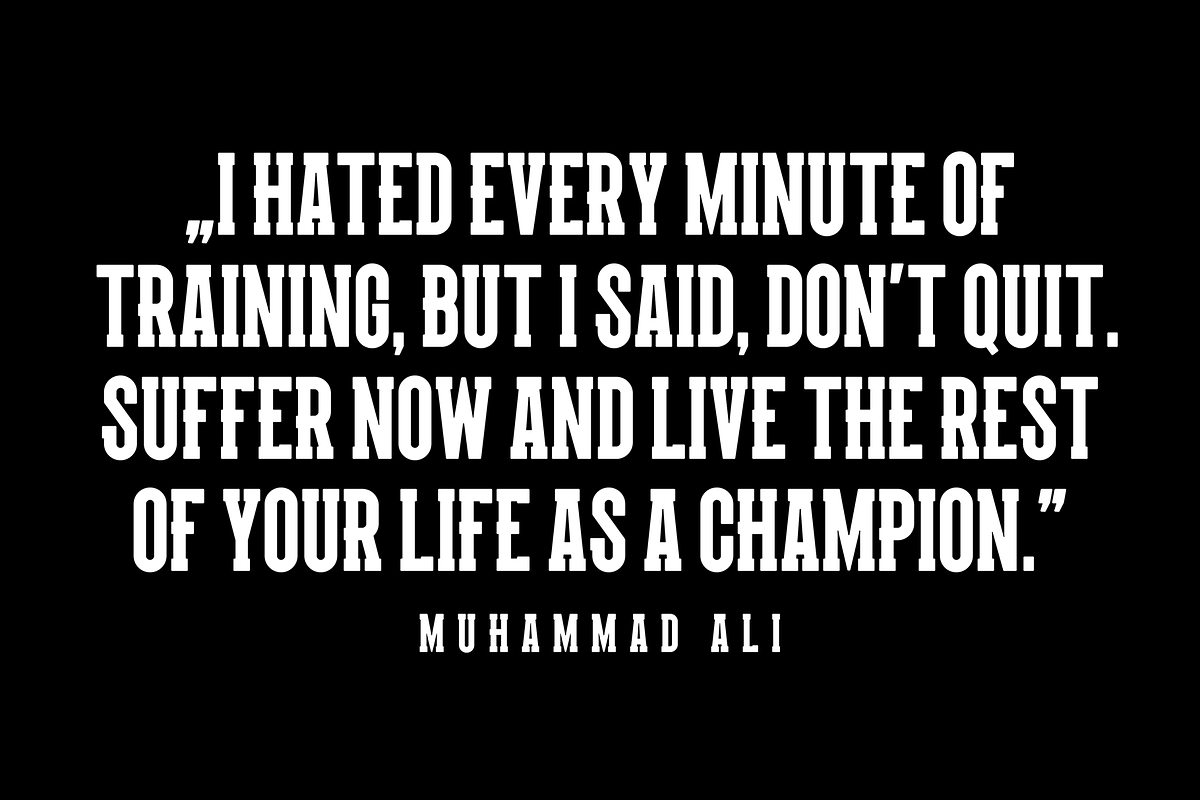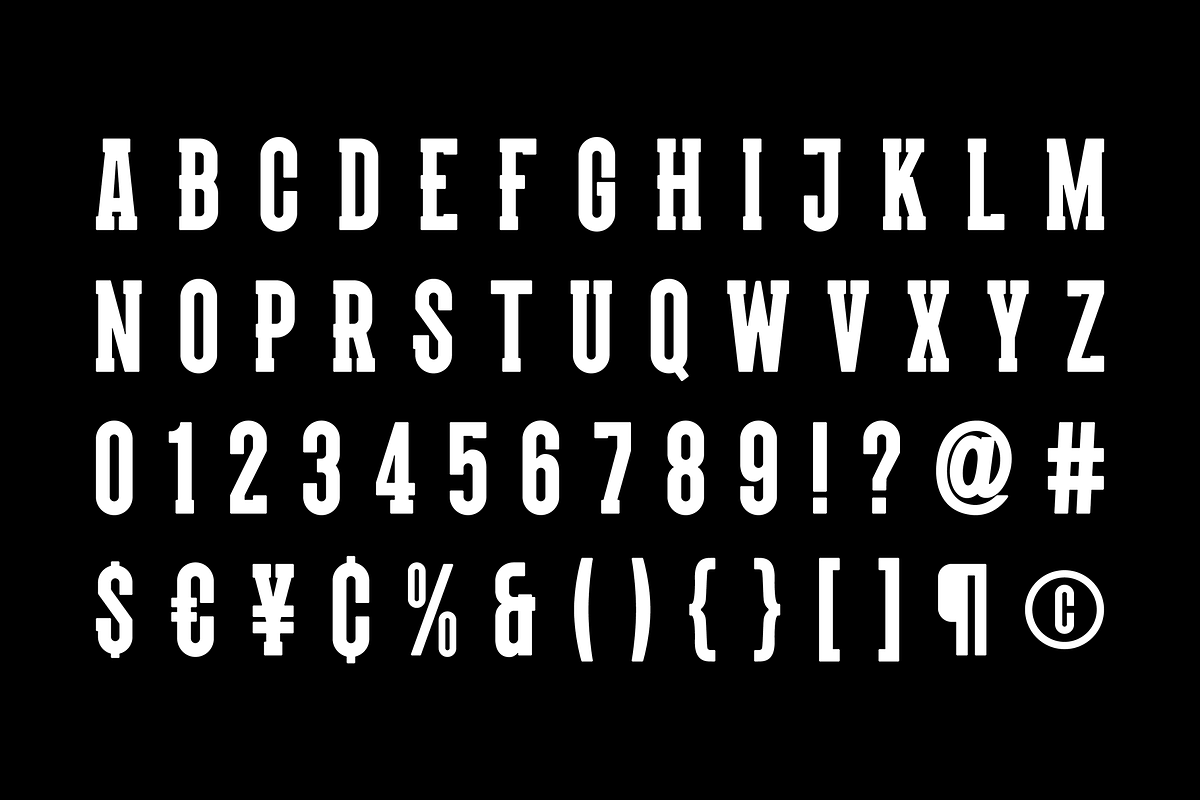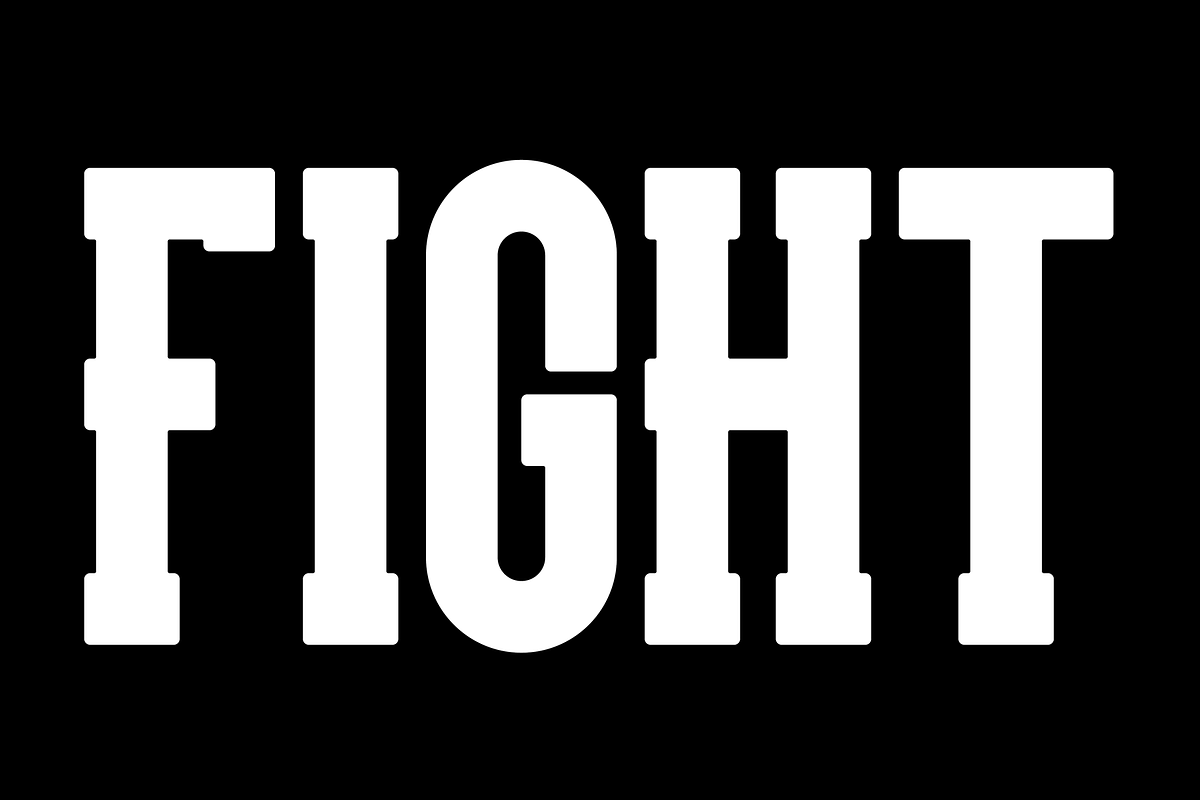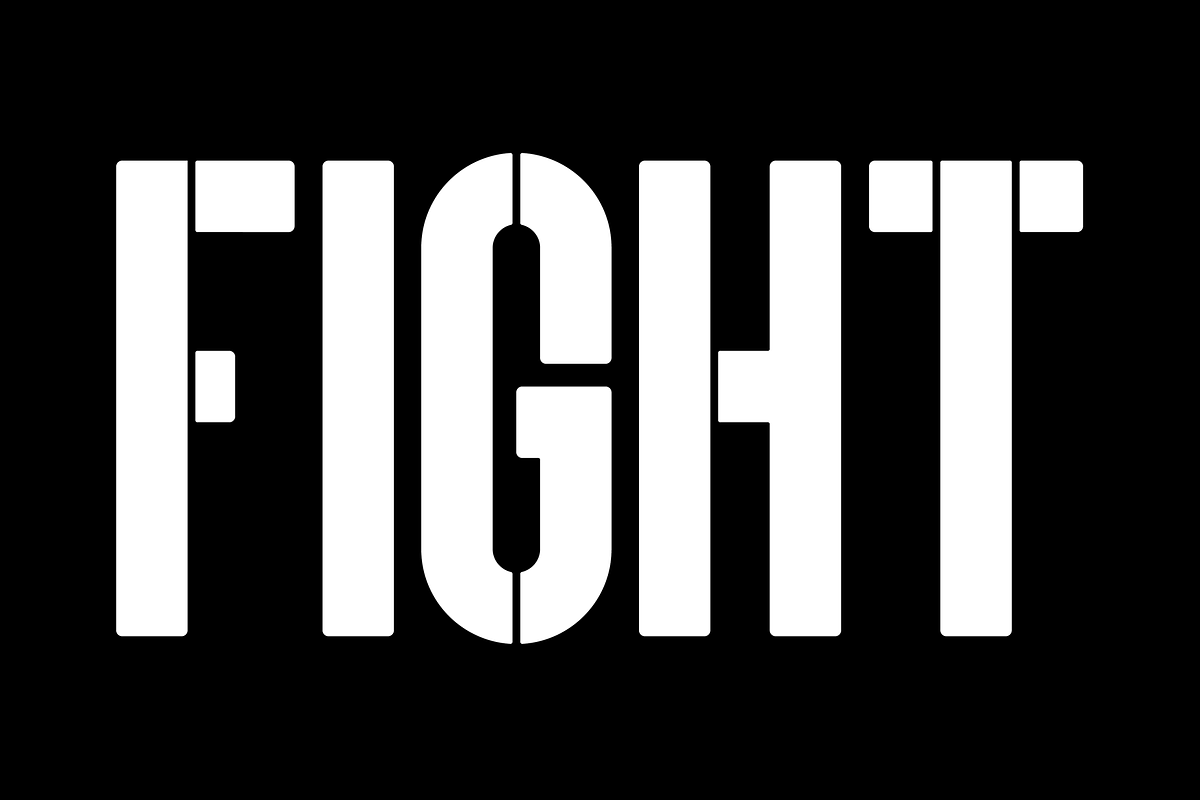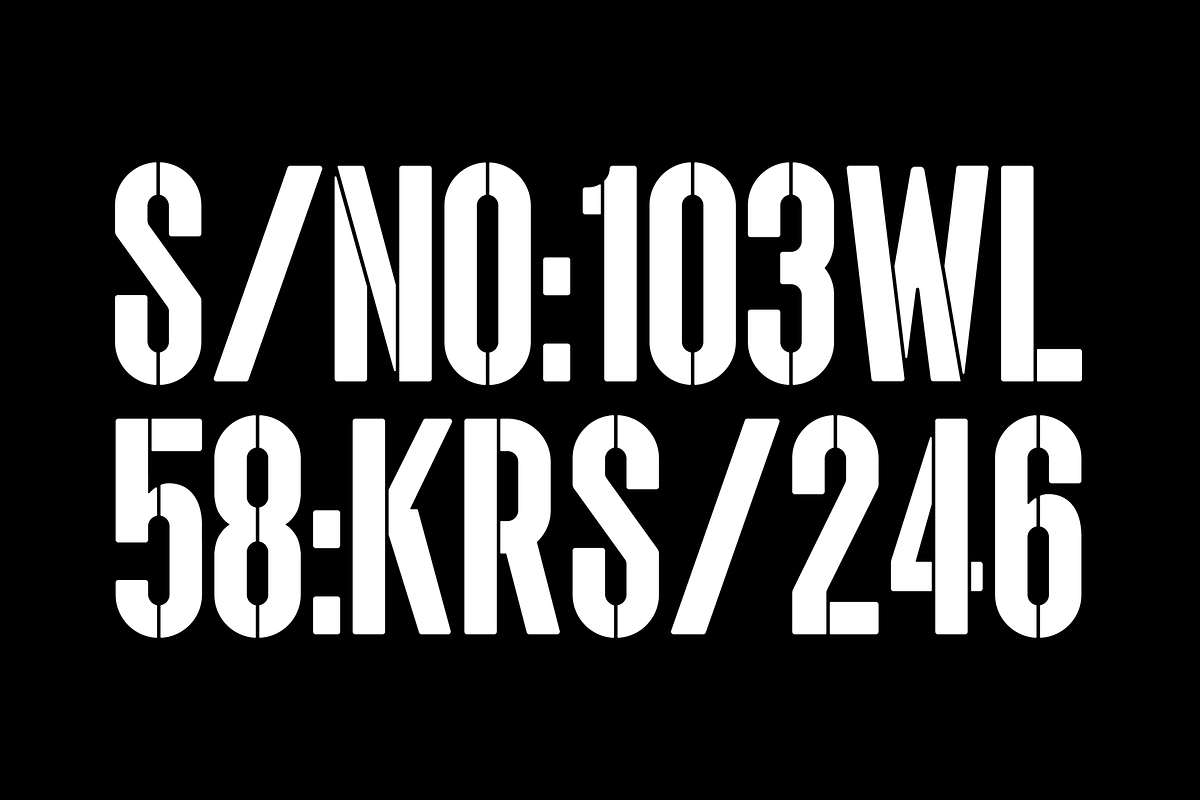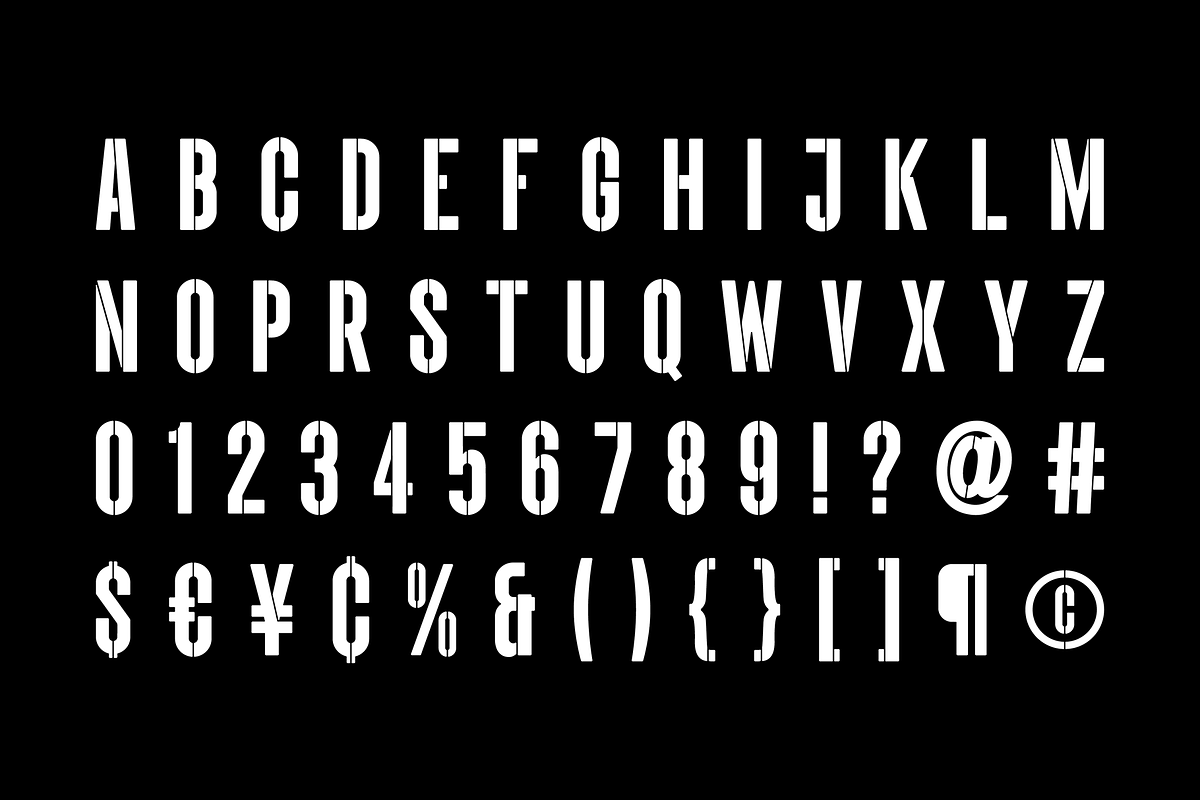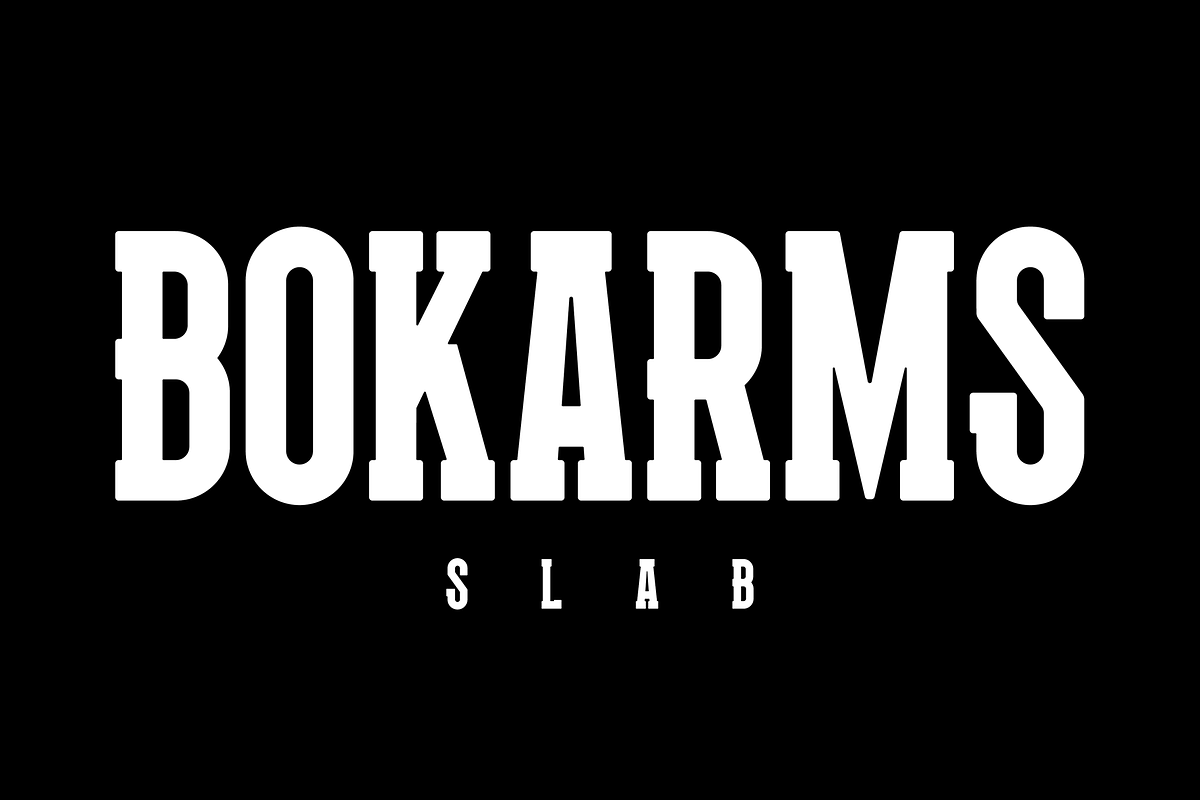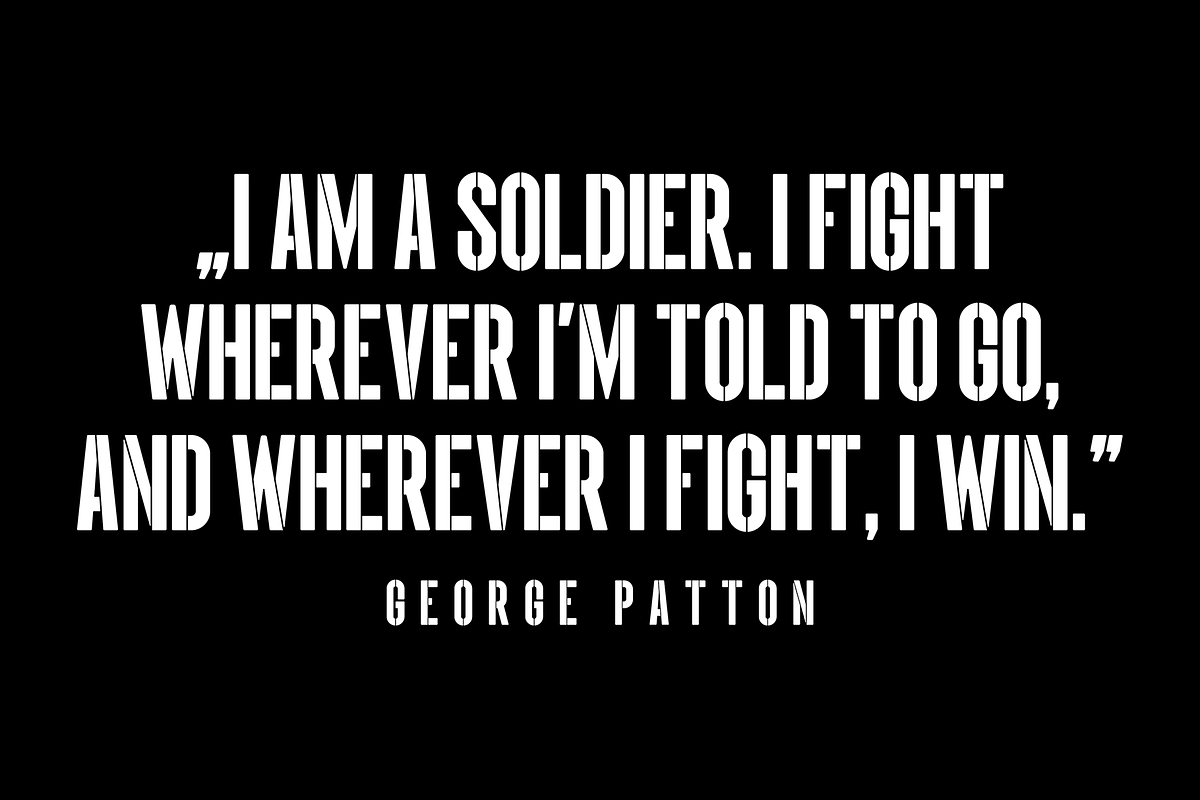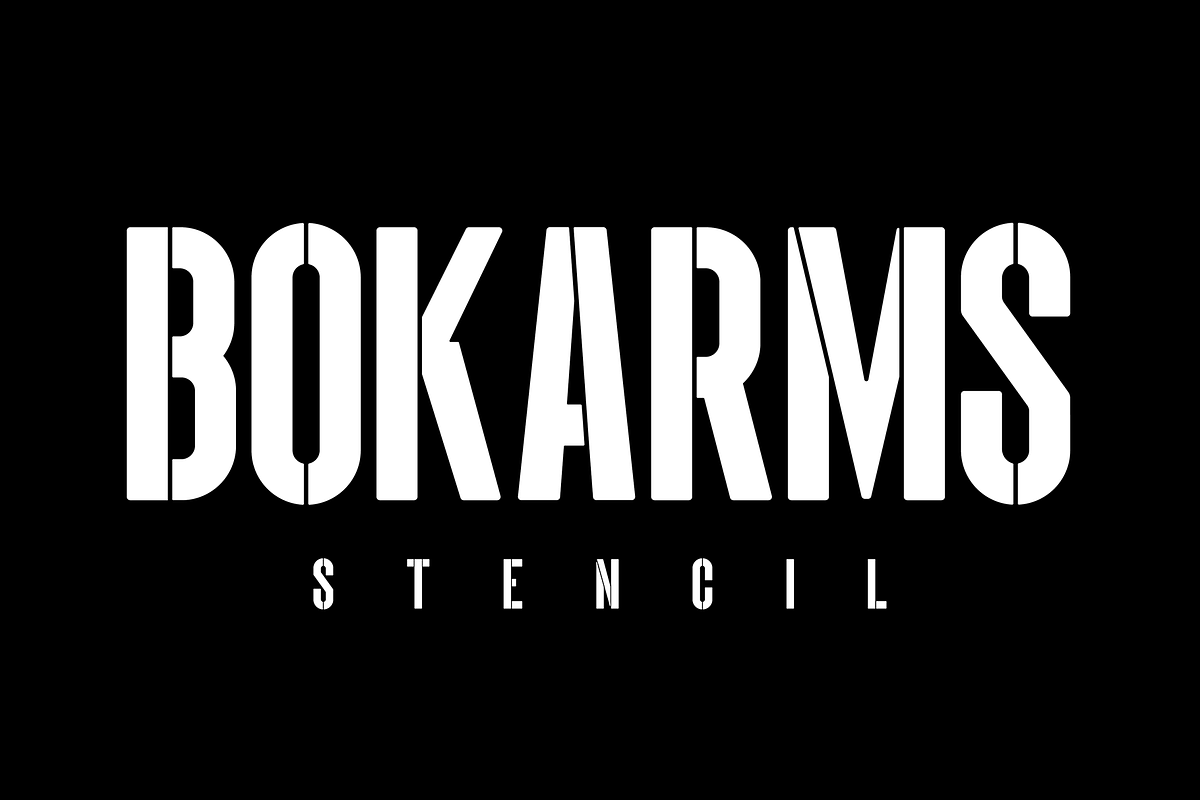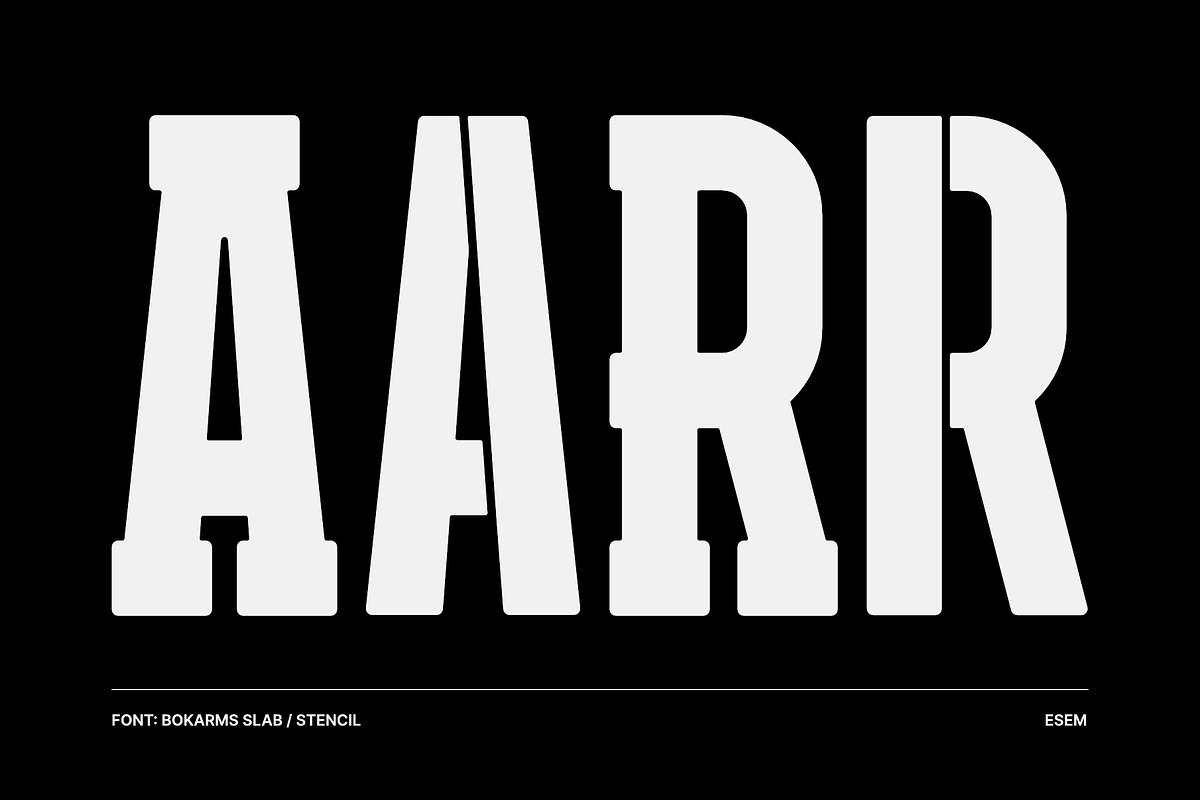
Bokarms | Slab & Stencil
Bokarms is a versatile font family featuring condensed slab serif styles designed for impactful visual communication. Its two distinct styles – a robust regular slab and a sharp stencil version – cater to a wide range of applications. The font's bold presence and authoritative aesthetic make it ideal for branding projects, logo design, posters, and signage, particularly in industries like sports, military, and industrial settings. The 'academy' feel evoked by the font lends itself well to educational or training-related contexts as well.